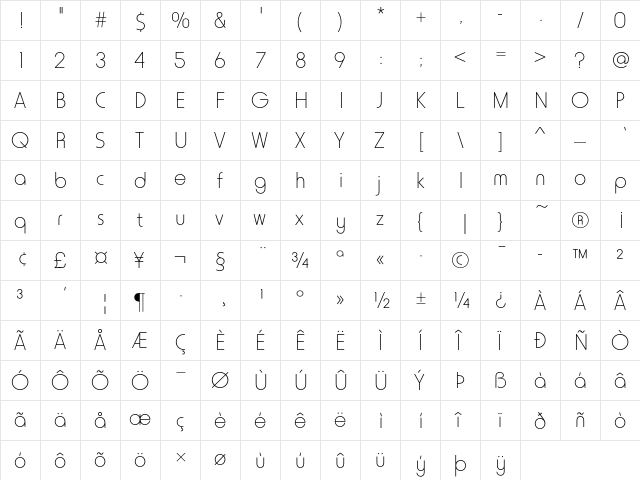
Horatio D Light
Design Context for Horatio D Typeface
Horatio D offers clean, dependable letterforms without strong stylistic allegiance, making it a practical choice for designers who need flexibility. Its slender proportions lend an understated elegance to any composition.
Pro Tip: Use Horatio D in both headline and body roles to test its range before committing to a single application.